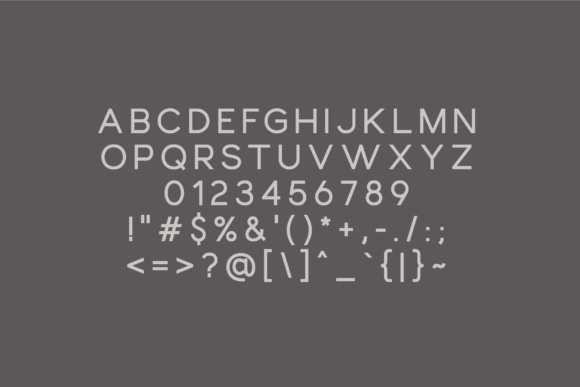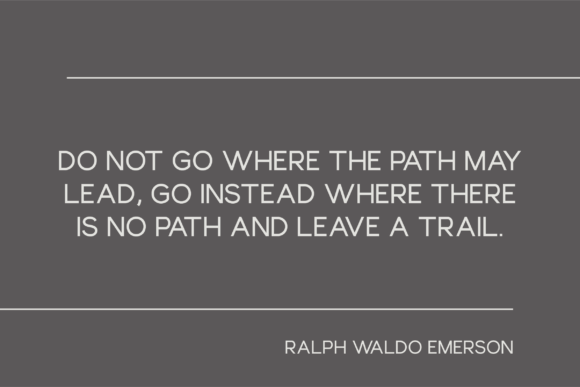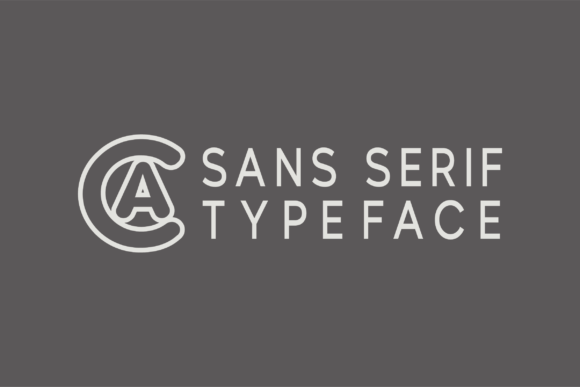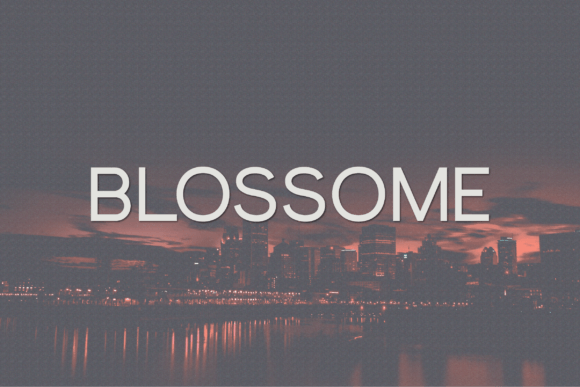
Introduction to Blossome Font
Unveiling Blossome, a contemporary, elegant sans serif typeface.
This stylishly straightforward typeface features a full suite of upper-case characters, digital range from 0 through 9, and a diverse spectrum of punctuations and symbols Blossome is a highly adaptable font, superb for branding identities, wedding stationery, personalized invitations, inspiring quotes, radiant advertisements, polished print materials, captivating magazines, and beyond.
Key Features of Blossome Font
Why Choose Blossome Font?
Blossome Font offers exceptional quality and versatility, making it a valuable addition to your design toolkit. Whether you’re creating for personal projects or commercial use, Blossome Font delivers professional results.